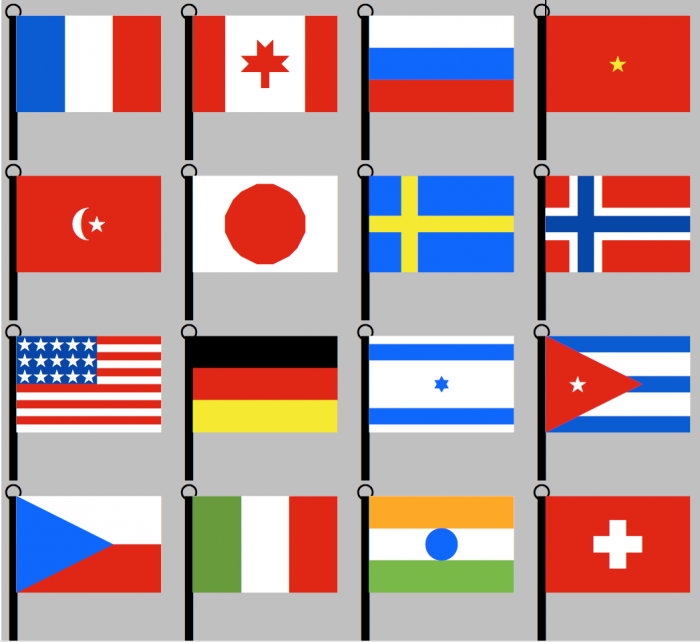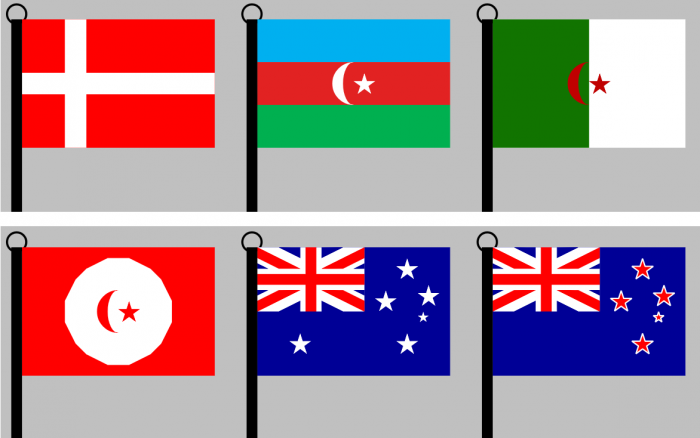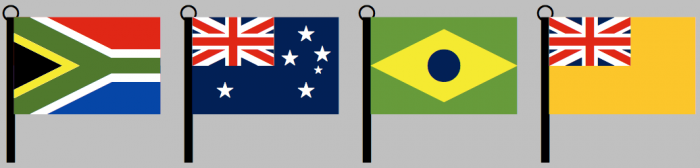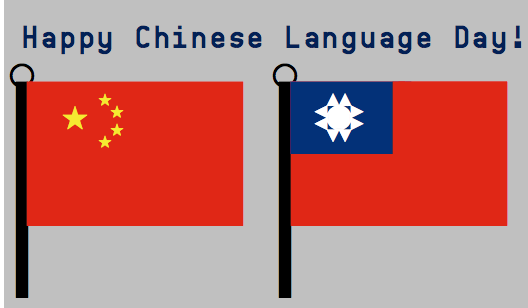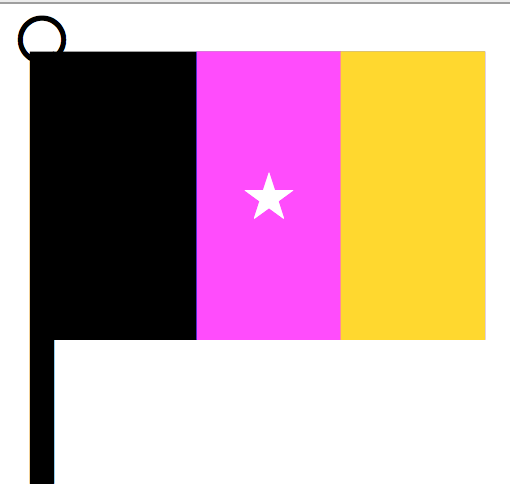
A font for creating flags. I'm pretty sure this hasn't been done before.
Directions: Type the vertical line (|) for a flagpole. Then type 0 for the background. Then add details using the upper and lowercase letters. You will need a word processor that supports text coloring if you want to color your flags.
vertical line- flagpole
0 - flag background
A - Vertical tricolor part 1
B - Vertical tricolor part 2
C - Vertical tricolor part 3
D - Vertical bicolor part 1
E - Vertical bicolor part 2
F - Nordic cross
G - Nordic cross, thicker
H - Nordic cross, fimbriation (only works on thin one)
One of those that doesn't look great in the preview but is actually really clever and useful. I would add some tags so people can find it. Maybe also adding some pre-composed flags in one of the non-latin charsets would make the preview more exciting and give people an idea of the possibilities.
Nice work winty5! I thought the crescent and star was a bit small, but I now see that it needs to be used in many different settings, and your size is probably the one that works best. Here are some flags that you missed in your sample ;) 10/10
Anyway, I have a good idea for a project relating to this font. We should show the world how diverse FontStruct is! My idea is this: Everyone on here should post their nationality/country of origin and I can make an image of all the flags. I'm from USA, so I'll start:
Great idea and excellent work and samples! I think that if you put some completed sample flags in the first number of characters, the font would show up better in the gallery pages and preview window.
A font for creating flags. I'm pretty sure this hasn't been done before.
Directions: Type the vertical line (|) for a flagpole. Then type 0 for the background. Then add details using the upper and lowercase letters. You will need a word processor that supports text coloring if you want to color your flags.
vertical line- flagpole
0 - flag background
A - Vertical tricolor part 1
B - Vertical tricolor part 2
C - Vertical tricolor part 3
D - Vertical bicolor part 1
E - Vertical bicolor part 2
F - Nordic cross
G - Nordic cross, thicker
H - Nordic cross, fimbriation (only works on thin one)
I - Thin vertical line
J - Thin vertical line, fimbriation
K - Circle, small
L - Circle, large
M - Border
N - Canton
O - Barry (stripes)
P - Stars in canton
Q - Star in middle
R - Star of David in middle
S - Thin stripes at top and bottom
T - Bend (Diagonal stripe)
U - Bend, reversed
V - Bend, fimbriation
W - Bend, reversed, fimbriation
X - Saltire (lines crossing)
Y - Regular cross
Z - Regular cross, thicker
a - Horizontal tricolor, top
b - Horizontal tricolor, middle
c - Horizontal tricolor, bottom
d - Chevron, hoist side
e - Three stripes
f - Star, hoist side
g - Islamic crescent and star
h - Shield shape
i - Shield shape, hoist side
j - Swiss cross
k - Maltese cross in canton
l - Horizontal bicolor, top
m - Horizontal bicolor, bottom
n - Maple leaf
o - Thin vertical stripes on sides
p - Thin horizontal stripes on sides
q - Star on hoist side
r - Reversed stars in canton
s - Southern Cross on fly side
t - Vertical stripe on hoist side
u - Sections
v - Sections, reversed
w - Water
x - Saltire, fimbriation
y - Thin horizontal line in middle
z - Thin vertical line in middle
Sample of some flags I made with this on Textedit
One of those that doesn't look great in the preview but is actually really clever and useful. I would add some tags so people can find it. Maybe also adding some pre-composed flags in one of the non-latin charsets would make the preview more exciting and give people an idea of the possibilities.
Wow. So super cool and creative and awesome.
Thanks, meek. I'll add some tags.
Thanks, thalamic. Always nice to read your comments :)
Update, Apr. 19
Shape updates:
P - 4x amount of stars added
r - 4x amount of stars added
New shapes:
. - Star in canton
, - Star on bottom hoist side
“ - Star on top fly side
‘ - Star on bottom fly side
? - Horizontal lozenge shape
! - Vertical lozenge shape
ALMOST posted a false bug report- turns out i changing shape was actually windows 10 spying on all of my typing and auto-capitalizing, even though it wont do such corrections on this text box? otherwise it seems quite fun to mess around with.
I'm from the UK!